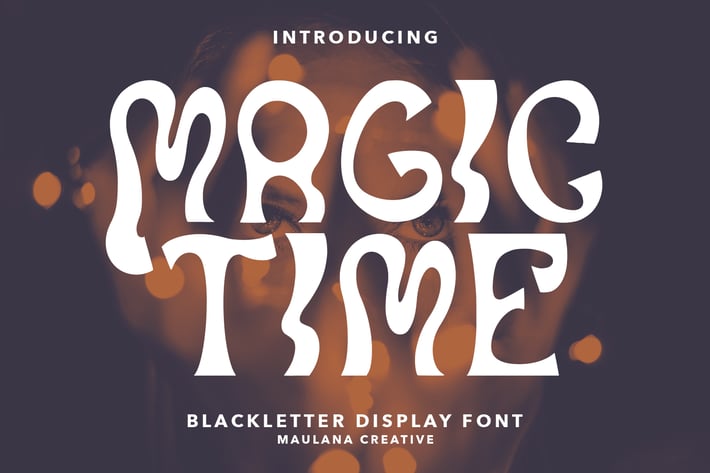
Magic Time Blackletter Display Font
Magic Time is a classic display serif font. With medium low contrast stroke, fun character with a bit of ligatures and alternates. To give you an extra creative work. Magic Time font support multilingual more than 100+ language. This font is good for logo design, Social media, Movie Titles, Books Titles, a short text even a long text letter and good for your secondary text font with script or serif. Make a stunning work with Magic Time font.